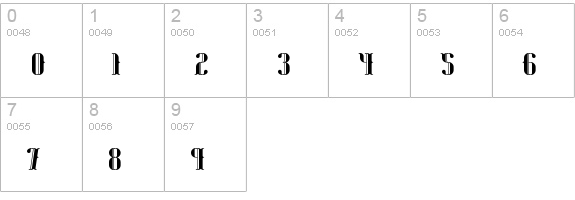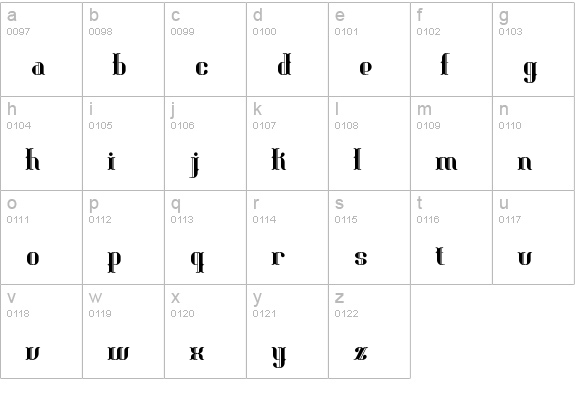
Blackoninaut Redux BRK Font Details
Blackoninaut Redux BRK font is a modern and stylish typeface that combines boldness with elegance. Its sharp edges and unique design make it perfect for attention-grabbing headlines, branding materials, and graphic designs. This font exudes a sense of sophistication and creativity, making it a versatile choice for various projects. What makes Blackoninaut Redux BRK font even more appealing is that it is available for free download at FontsMarket.com. Whether you are a professional designer looking for a new font to add to your collection or someone who simply appreciates high-quality typography, Blackoninaut Redux BRK font is a must-have. With its sleek and contemporary look, this font is sure to elevate your designs and leave a lasting impression on viewers. Download Blackoninaut Redux BRK font today and unleash your creativity with this stunning typeface.